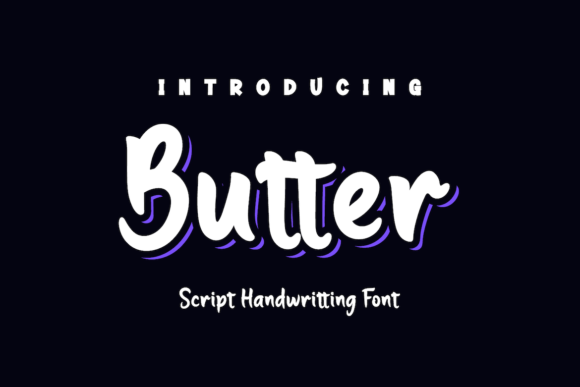
The Butter Font: A Cool and Stylish Addition to Your Design Arsenal
I’ll never forget the time I was working on a project for a client who wanted a font that was both playful and sophisticated. I spent hours scouring the internet for the perfect font, but nothing seemed quite right. That was until I stumbled upon the Butter font. With its cool, paint-brushed handwritten style, it was love at first sight! In this article, I’ll share my experience with the Butter font, and explore its features, uses, and alternatives.
An Honest Review of the Butter Font
So, what makes the Butter font so special? Here are a few things I love:
• ✨ Unique and eye-catching design: The Butter font has a distinctive, hand-painted look that’s sure to make your designs stand out.
• ✅ Versatile: Whether you’re creating digital designs, crafting, or making greeting cards, the Butter font is perfect for a wide range of projects.
• 💫 Easy to read: Despite its playful design, the Butter font is surprisingly easy to read, even in smaller sizes.
Of course, no font is perfect, and the Butter font has a few small quirks:
• 🤔 Limited use in formal designs: While the Butter font is amazing for creative projects, it may not be the best choice for more formal designs, such as business reports or academic papers.
• ⚠️ Some letters may be a bit inconsistent: As with any handwritten font, some letters may have slight inconsistencies in terms of size or style. However, this is part of the font’s charm!
One of the best things about the Butter font is its OpenType features and glyphs. These allow you to customize your text and add more visual interest to your designs. Here are a few tips for using OpenType features:
• Use stylistic alternates to swap out letters or words for more decorative versions.
• Experiment with different glyphs, such as ligatures or swashes, to add more flair to your text.
• Take advantage of font variations, such as bold or italic, to create visual hierarchy.
If you love the Butter font, you might also want to try these similar fonts:
• Pacifico: This beautiful, handwritten font has a similar feel to Butter, but with a more relaxed, beachy vibe. Use it for designs that need a laid-back, summery feel.
• Great Vibes: This elegant, script font has a similar sense of sophistication to Butter, but with a more refined, cursive look. Use it for designs that need a touch of luxury.
• Lobster: This bold, script font has a similar sense of playfulness to Butter, but with a more dramatic, eye-catching style. Use it for designs that need a statement piece.
• Carolyna Pro: This beautiful, handwritten font has a similar sense of whimsy to Butter, but with a more feminine, elegant look. Use it for designs that need a touch of sweetness.
The Story Behind the Butter Font
So, where did the Butter font come from? According to its designer, the Butter font was inspired by the art of hand-painted signs and the beauty of imperfection. The designer wanted to create a font that captured the essence of handmade crafts and the uniqueness of human touch.
Is the Butter font available in different weights or styles? Currently, the Butter font is available in a single weight, but its versatility and range of OpenType features make it suitable for a wide range of designs.